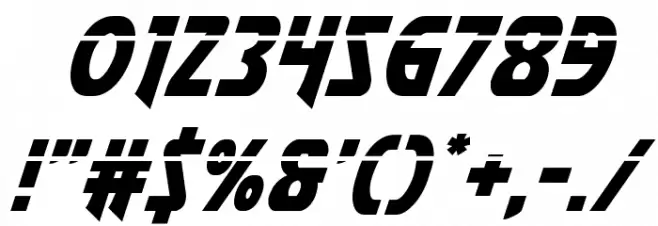
Flash Rogers Laser Italic Font
Flash Rogers Laser Italic Description
This font features a bold, italicized style with sharp, angular edges and a futuristic aesthetic. The characters are designed with a dynamic slant, giving a sense of movement and speed. The strokes are thick and consistent, creating a strong visual impact. The uppercase and lowercase letters maintain a uniform style, while the numbers and special characters integrate seamlessly with the overall design. This font is ideal for projects that require a modern and energetic look.
A bold, italicized font with sharp, angular edges and a futuristic style from Uncategorized fonts.
- Proposed Projects: Ideal for sports branding, video game titles, sci-fi movie posters, and dynamic logo designs.